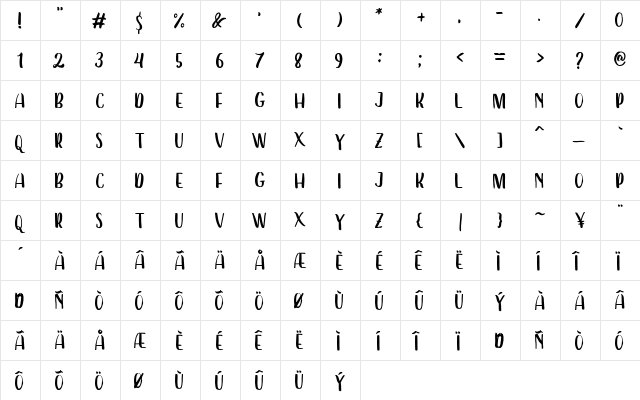
Dearday Sans
| Style | Sans |
| Foundry | Letterhend Studio |
| Designer | Letterhend Studio |
Design Context for Dearday Typeface
Dearday offers clean, dependable letterforms without strong stylistic allegiance, making it a practical choice for designers who need flexibility.